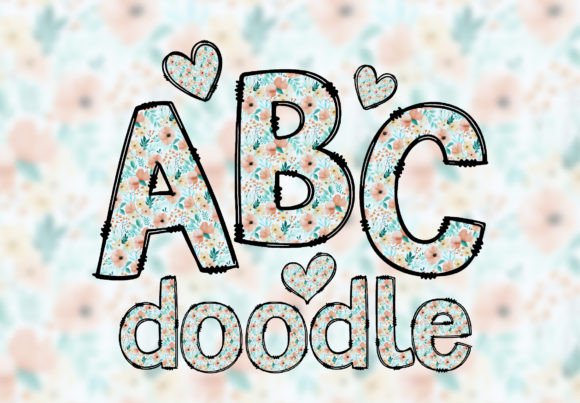
Patchwork Alphabet Faux Quilted Letters
A playful and creative way to enhance your designs! This unique font set features hand-drawn letters with whimsical doodles, adding a touch of charm to any project. Perfect for invitations, greeting cards, posters, and more, these PNG files offer seamless integration into your favorite design software. The transparent background of each letter allows for easy layering, giving you the freedom to customize and personalize with ease. Unlock a world of creative possibilities and make your messages stand out with our Doodle Letters PNG Font – where every character tells a story!